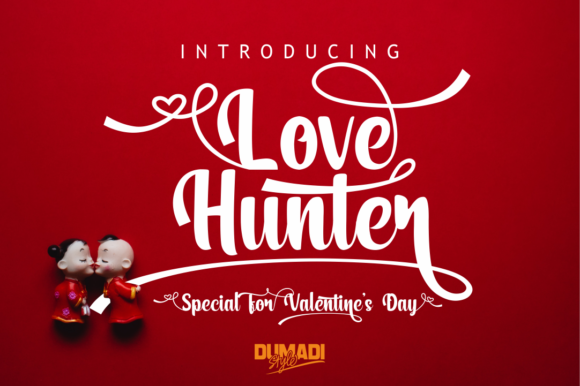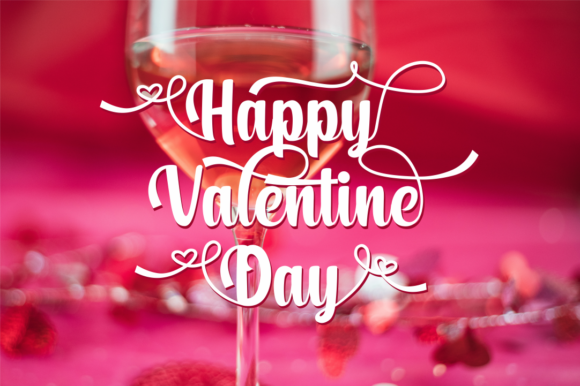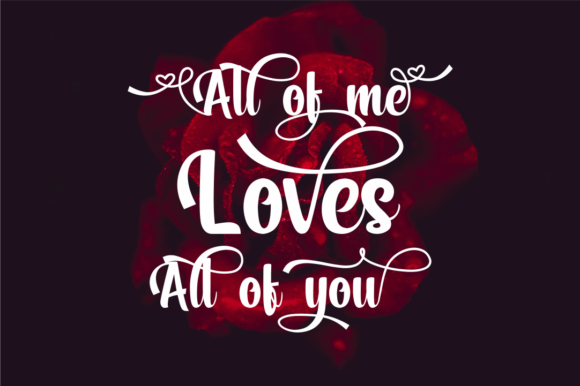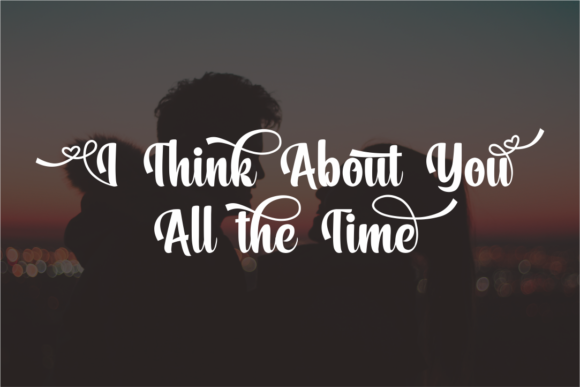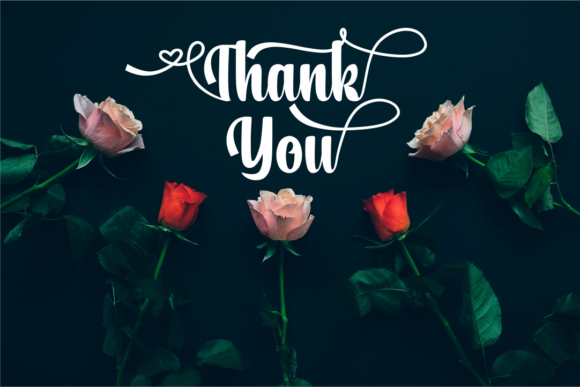
Love Hunter Font
About Love Hunter Font
Love Hunter is the perfect font for all things Valentine’s Day. Use this romantic script to add a romantic touch to a wide range of design projects!